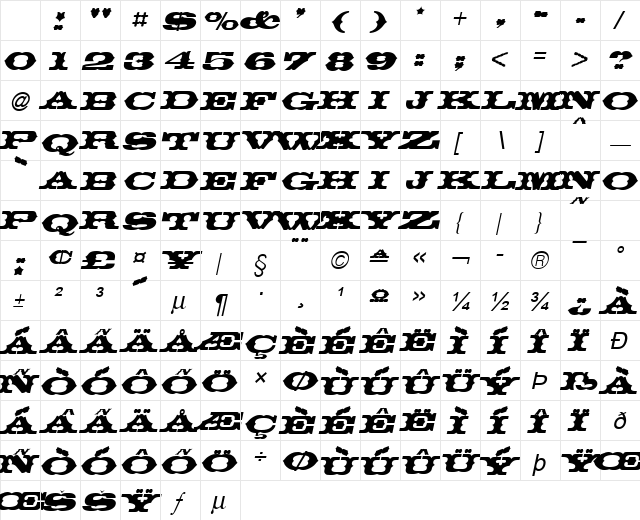
Wyatt is a composed and adaptable typeface that performs quietly and consistently across a wide range of design contexts. The slanted form adds forward momentum and visual energy.
Pro Tip: Use Wyatt for emphasis, pull quotes, and subheadings where its slanted energy can add rhythm to the layout.